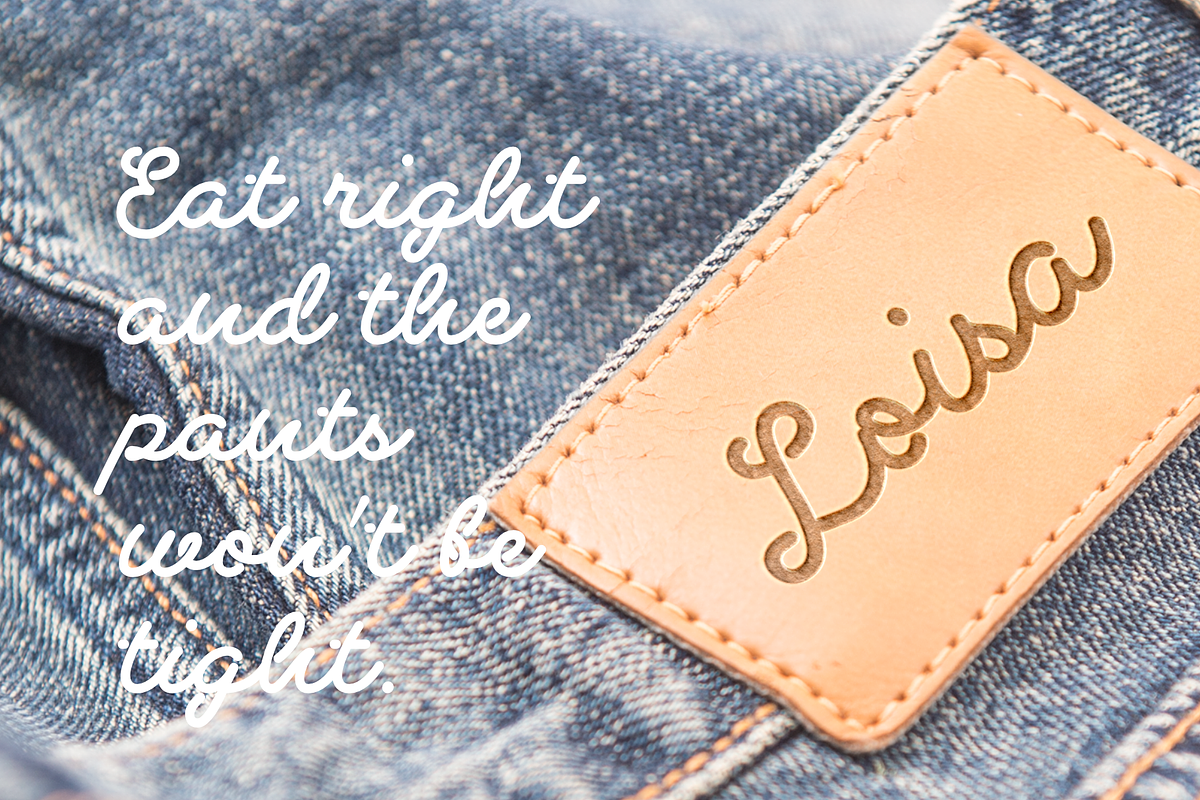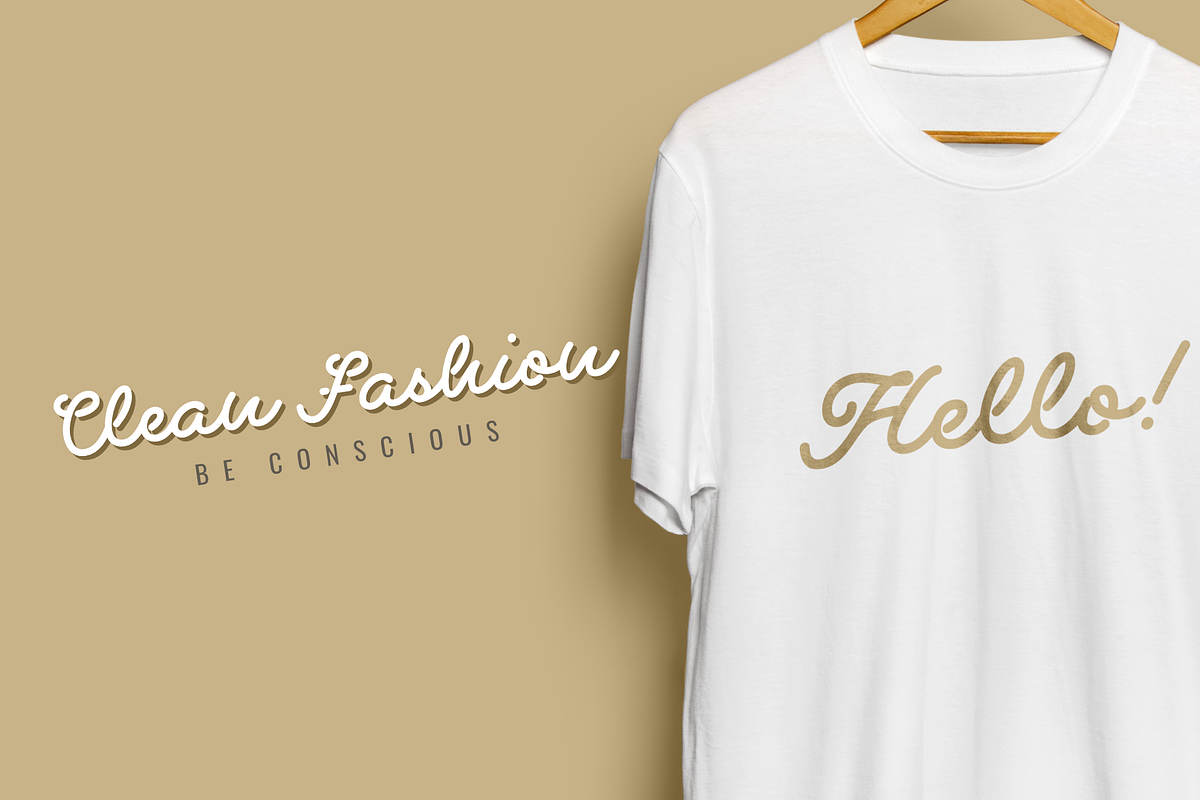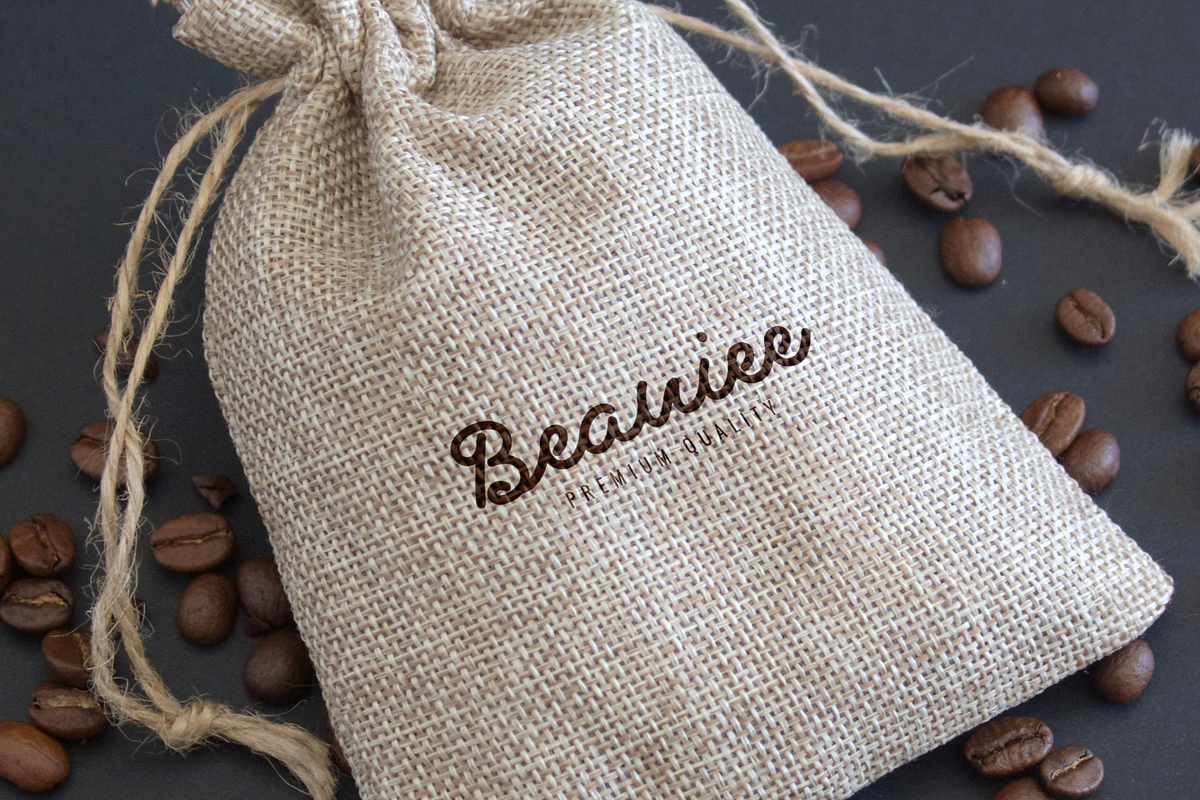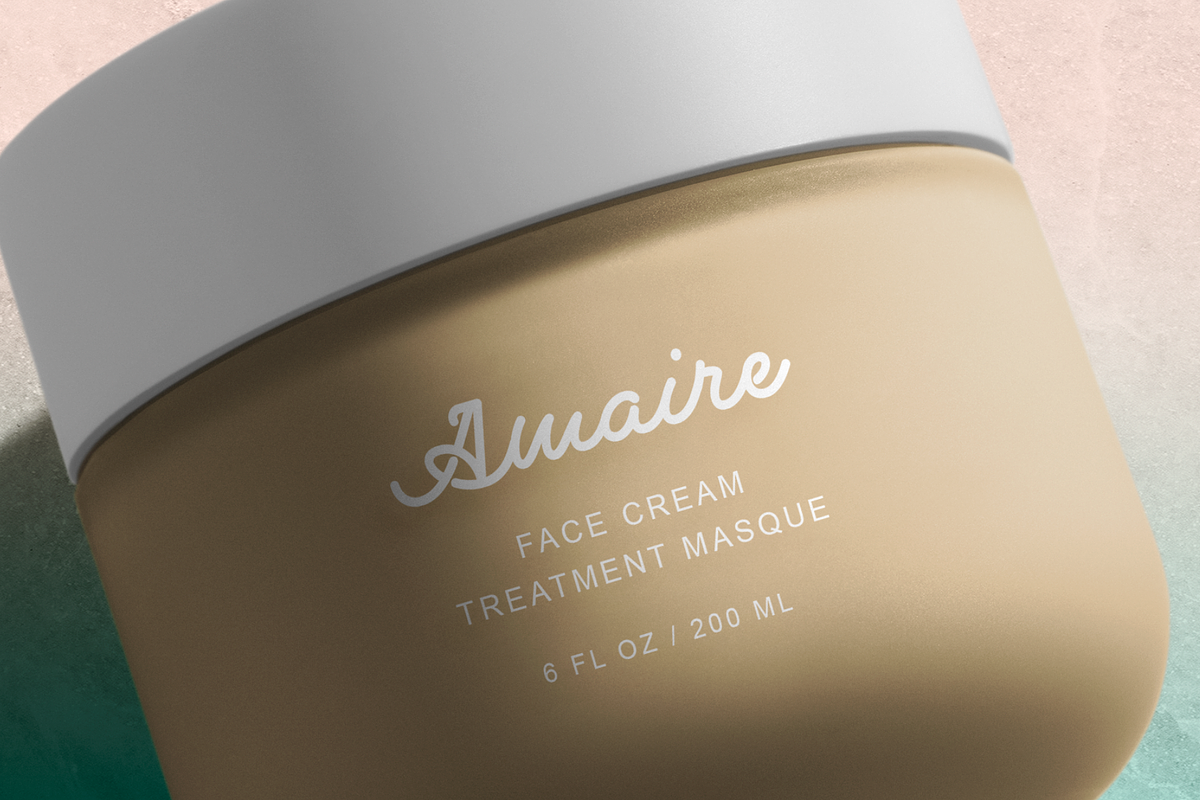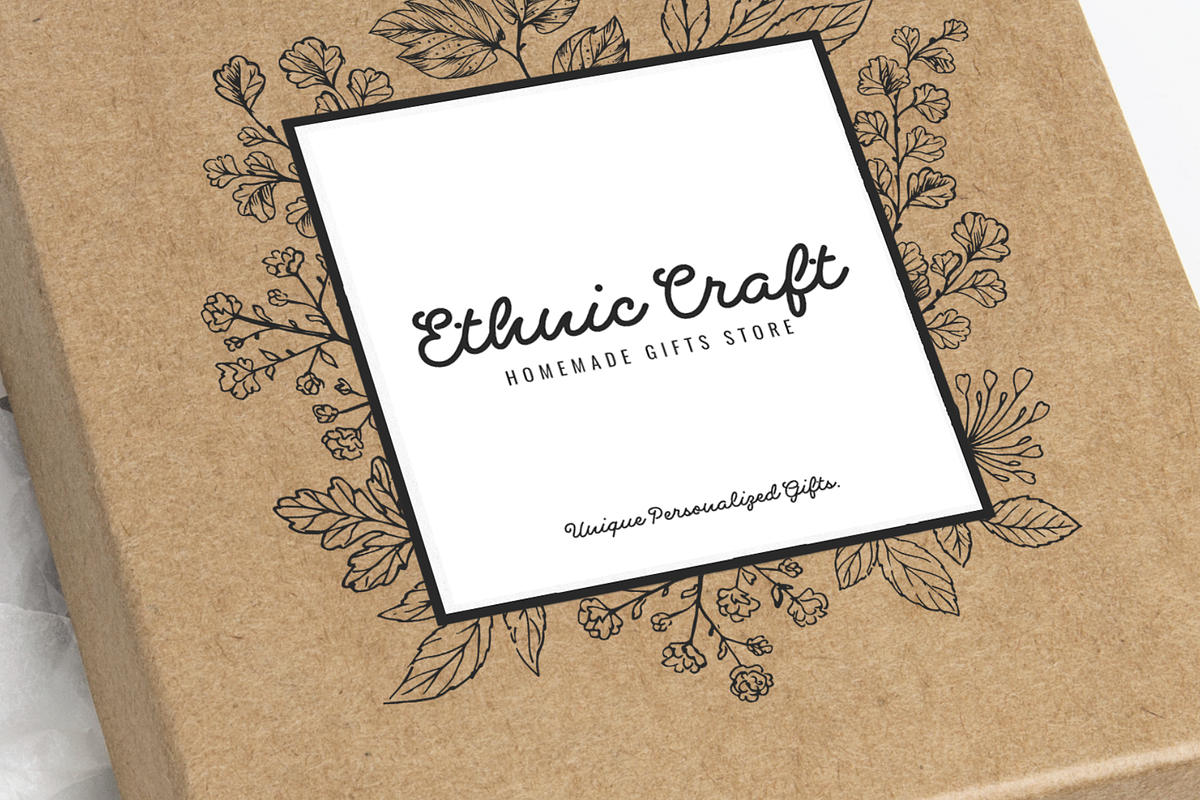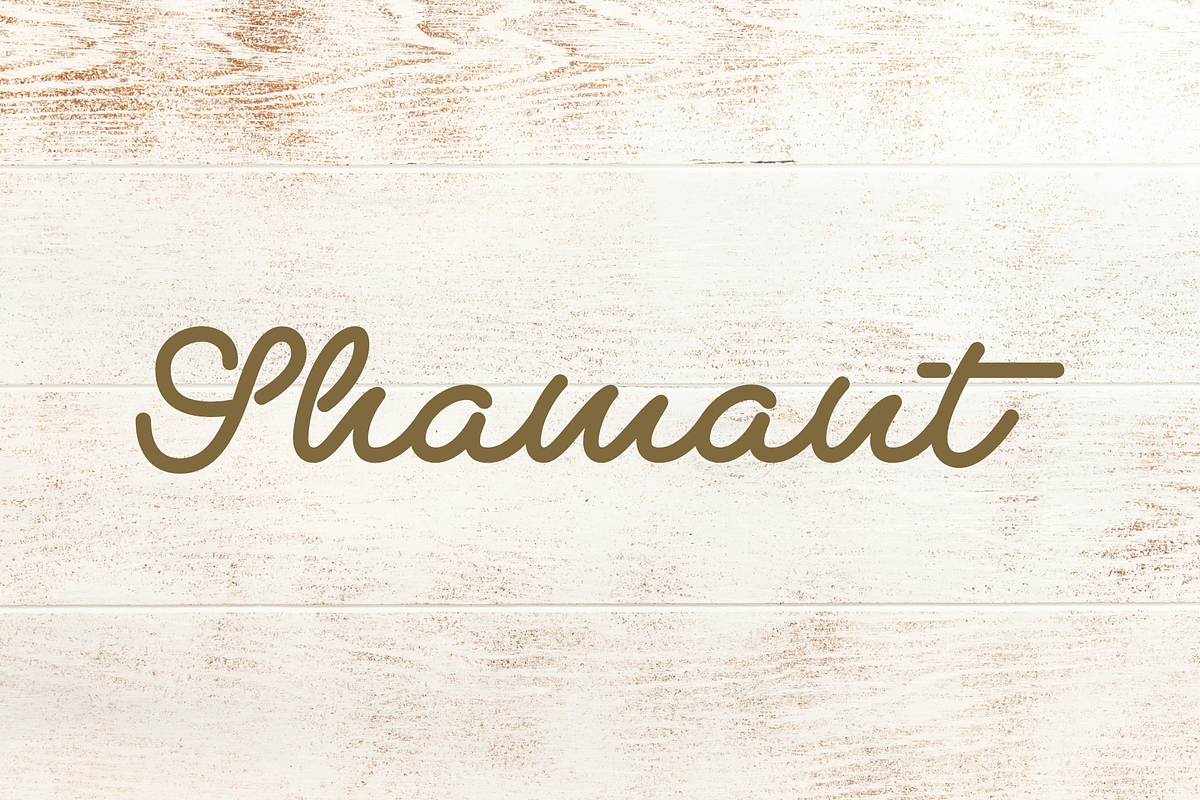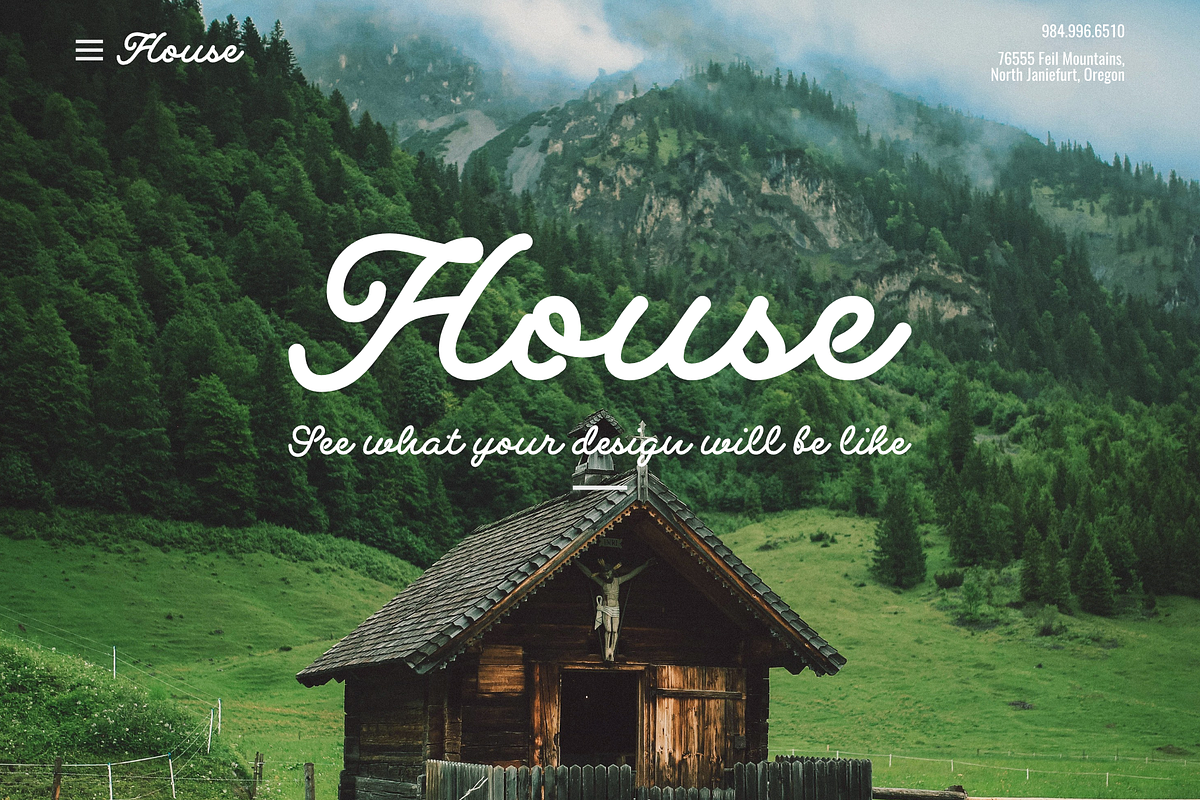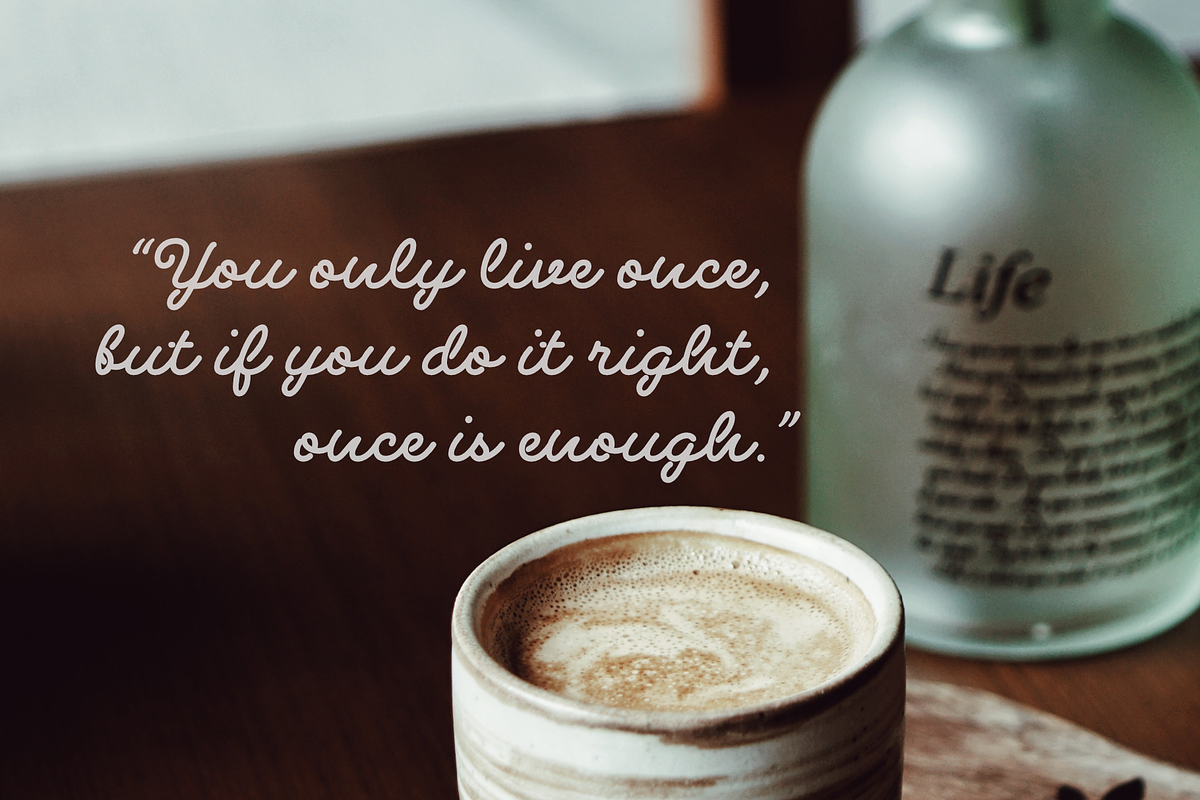
Shamant
Shamant is a cursive handwriting style that gives you a modern vintage vibe.
It has a hand-drawn monoline font look, an excellent choice for old-school-inspired designs and modern adaptations with a handwriting look.
So for all the vintage-inspired branding, logos, wedding invites, book covers, etc., this authentically flowing font is your one-stop place.